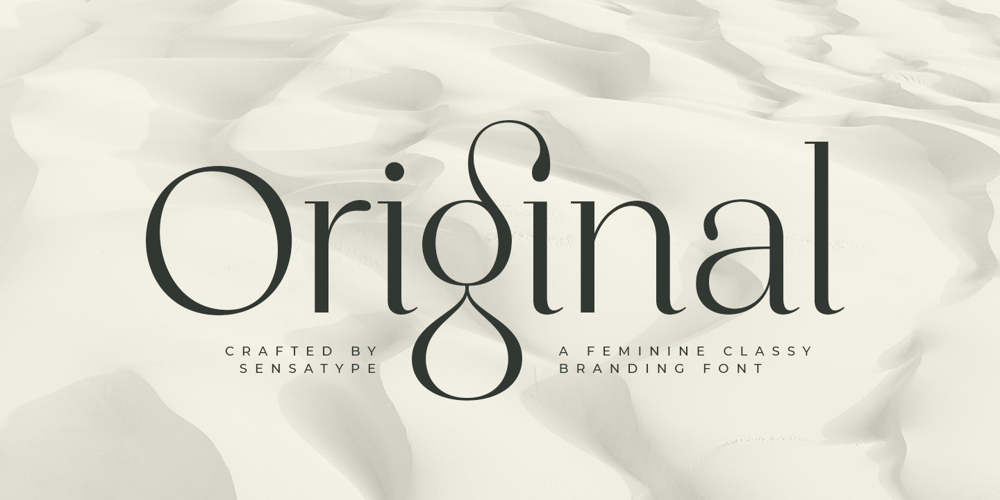
Original SS
Original SS font
Original SS Font Family was designed by Zamroni Hamzah and published by Sensatype Studio. Original SS contains 1 styles and family package options. Original is a Feminine Classy Branding FontA new font that we created special for branding needs, with extra ligature in unique characters add value of your brand. It so nice to leverage designer or product owner that need solutions to make their design look more stylish and modern. And specially for satisfy font, We prepared any ligatures, and any alternate characters to help you create unlimited variations for your creative needs.Original Branding font ready with: Any options to get creative variations (combination of Alternate and Ligatures) Preview as a inspirations that you can do with Original font Ready with Lowercase and Uppercase characters Wish you enjoy our font. 🙂